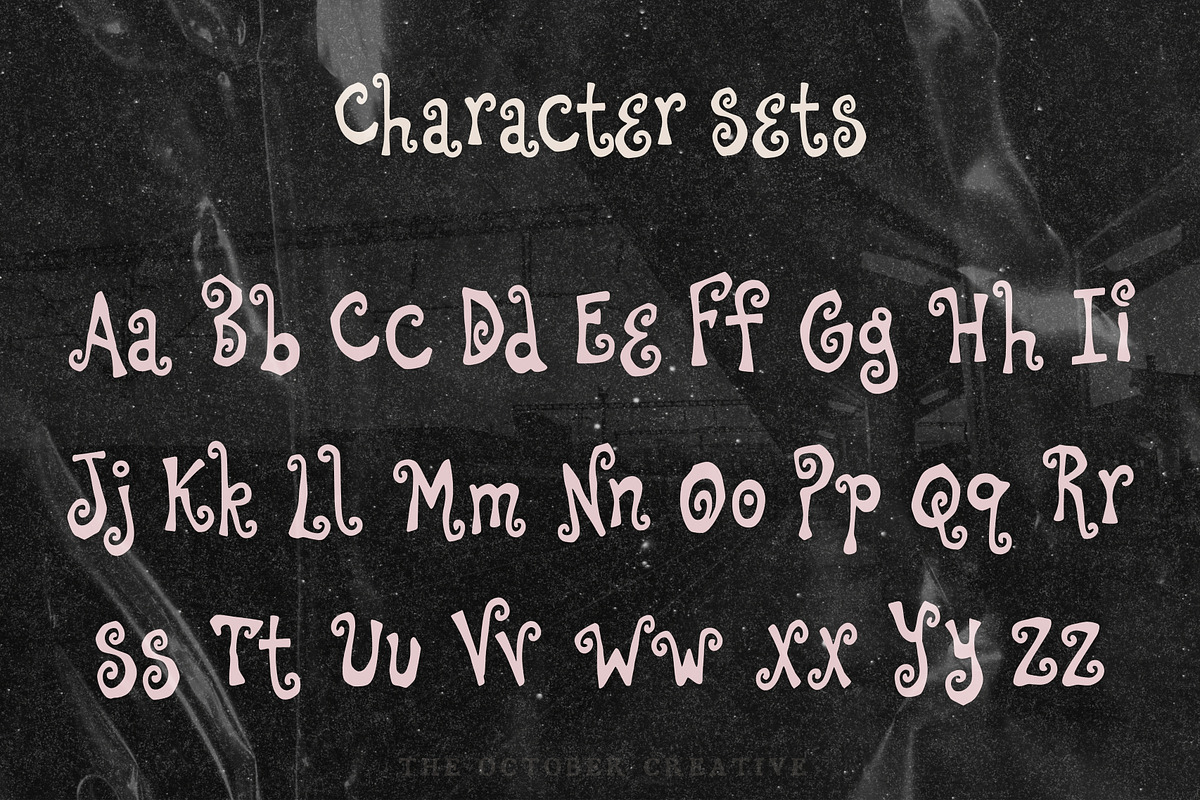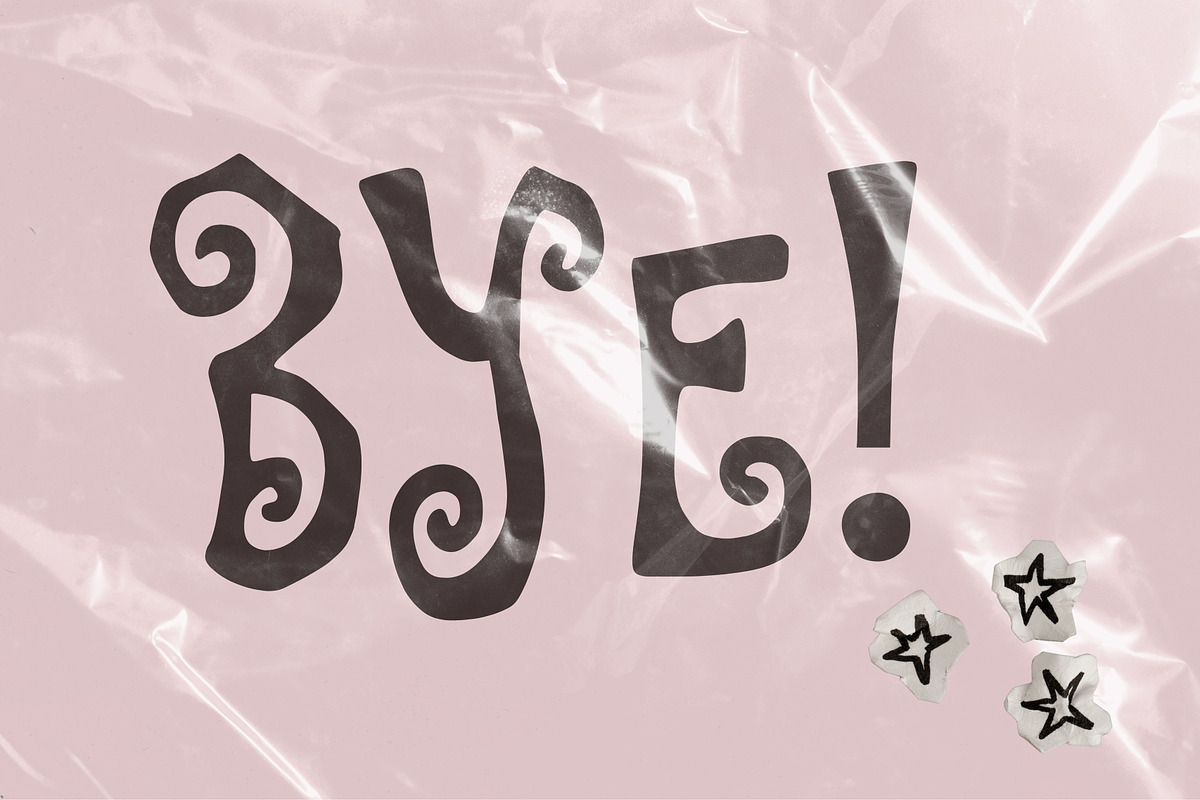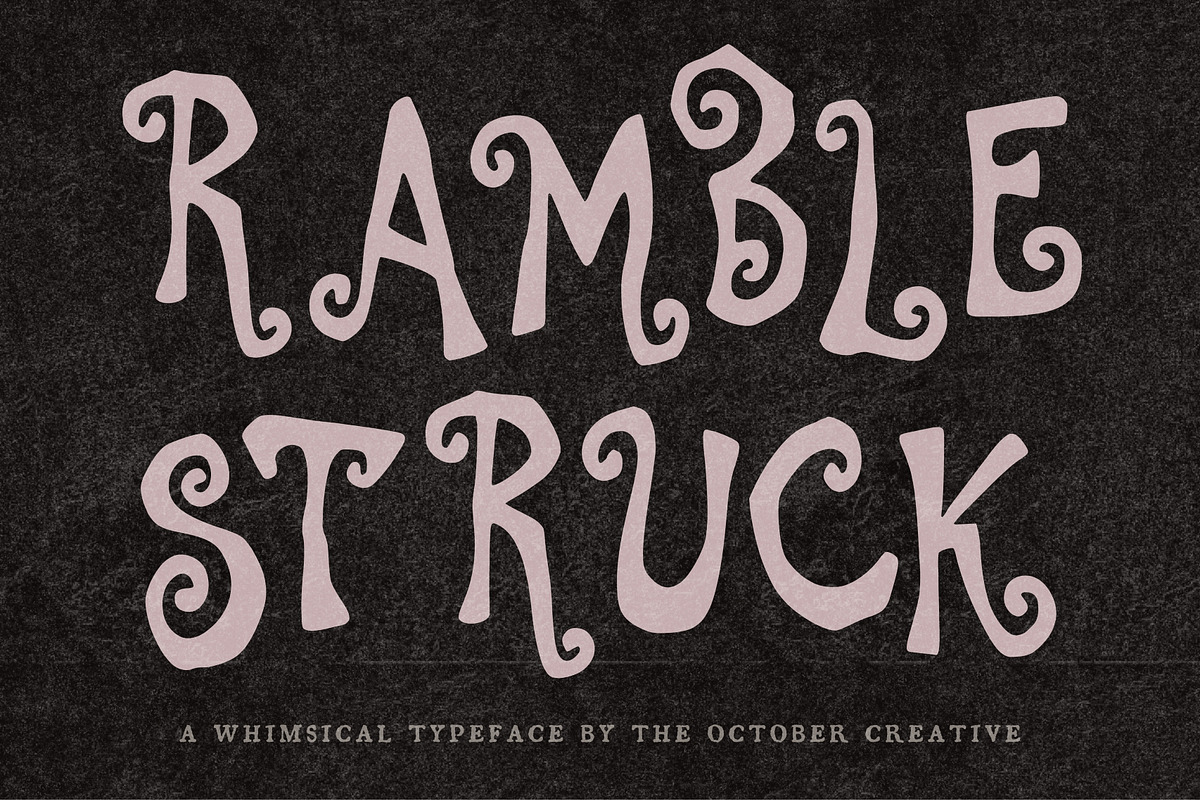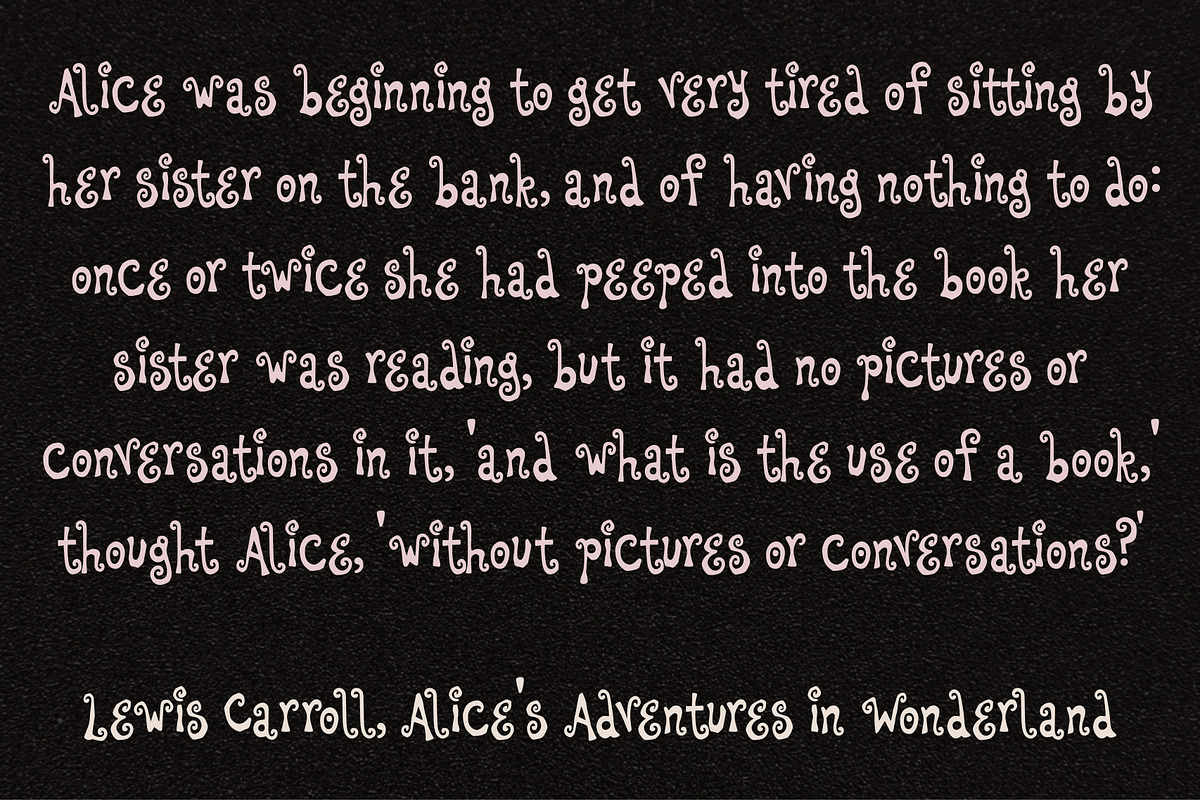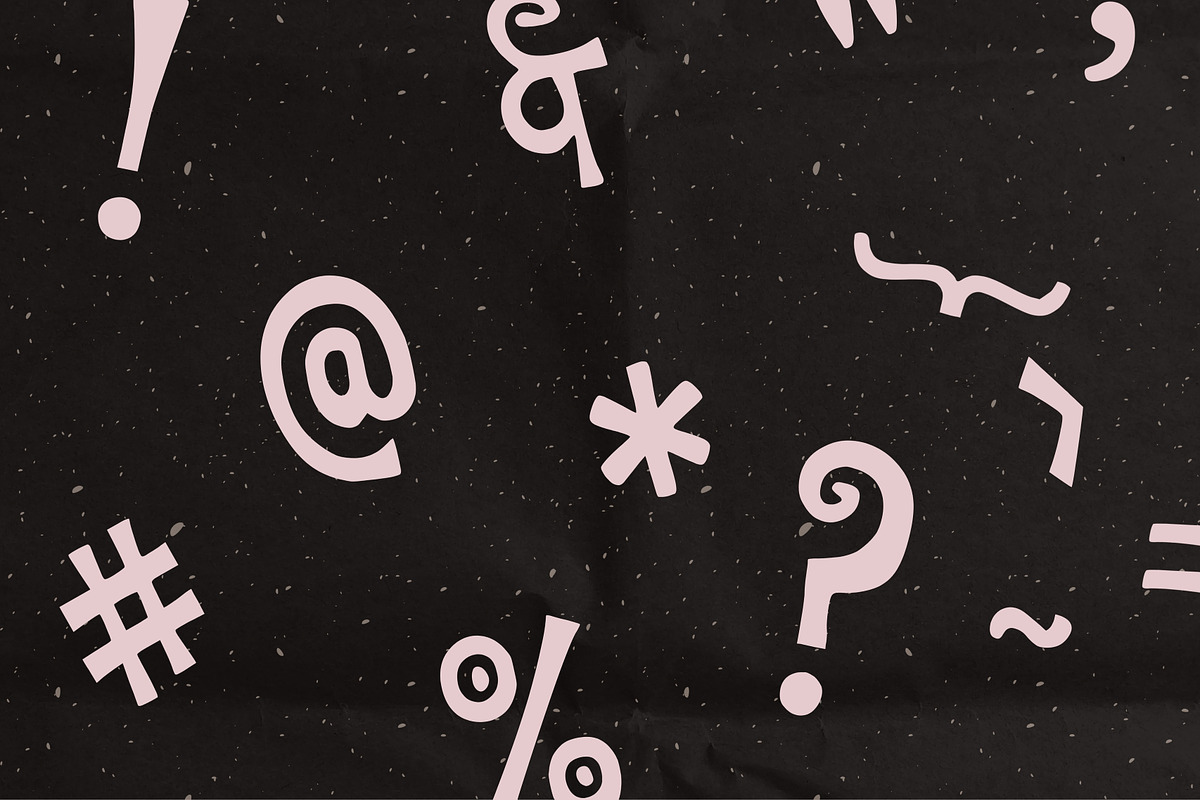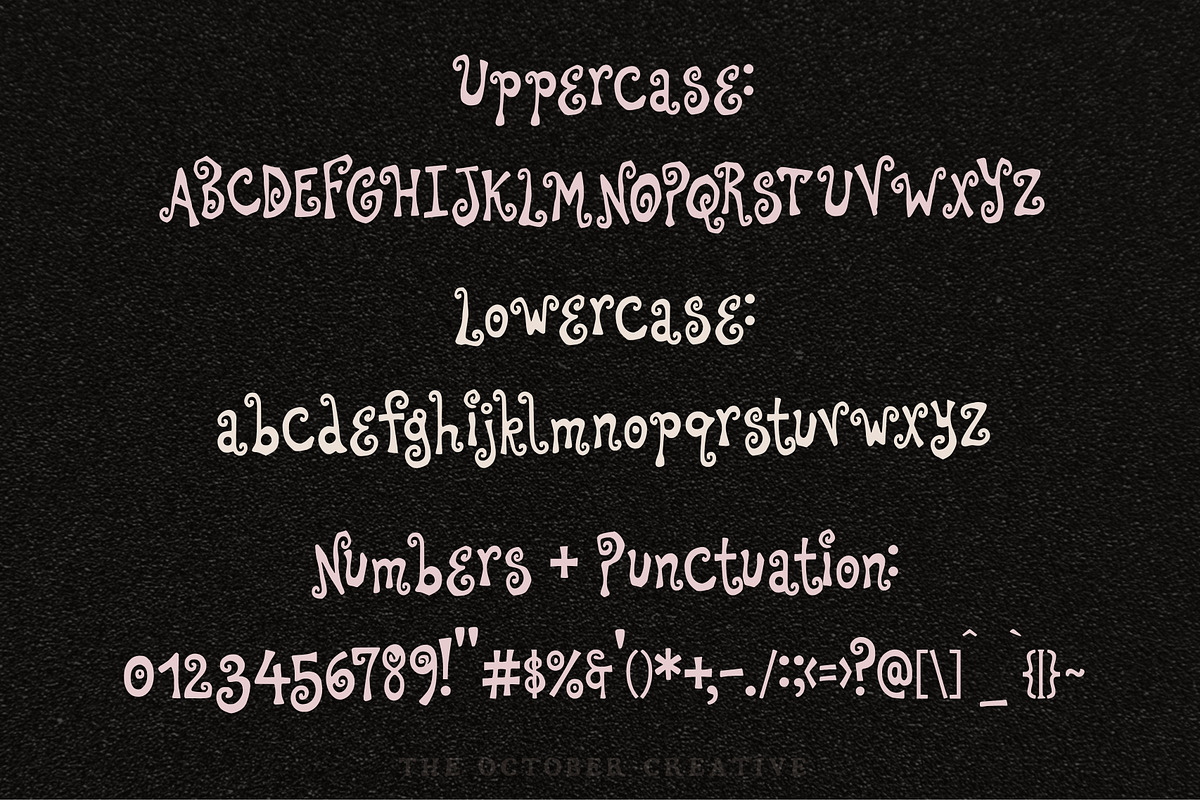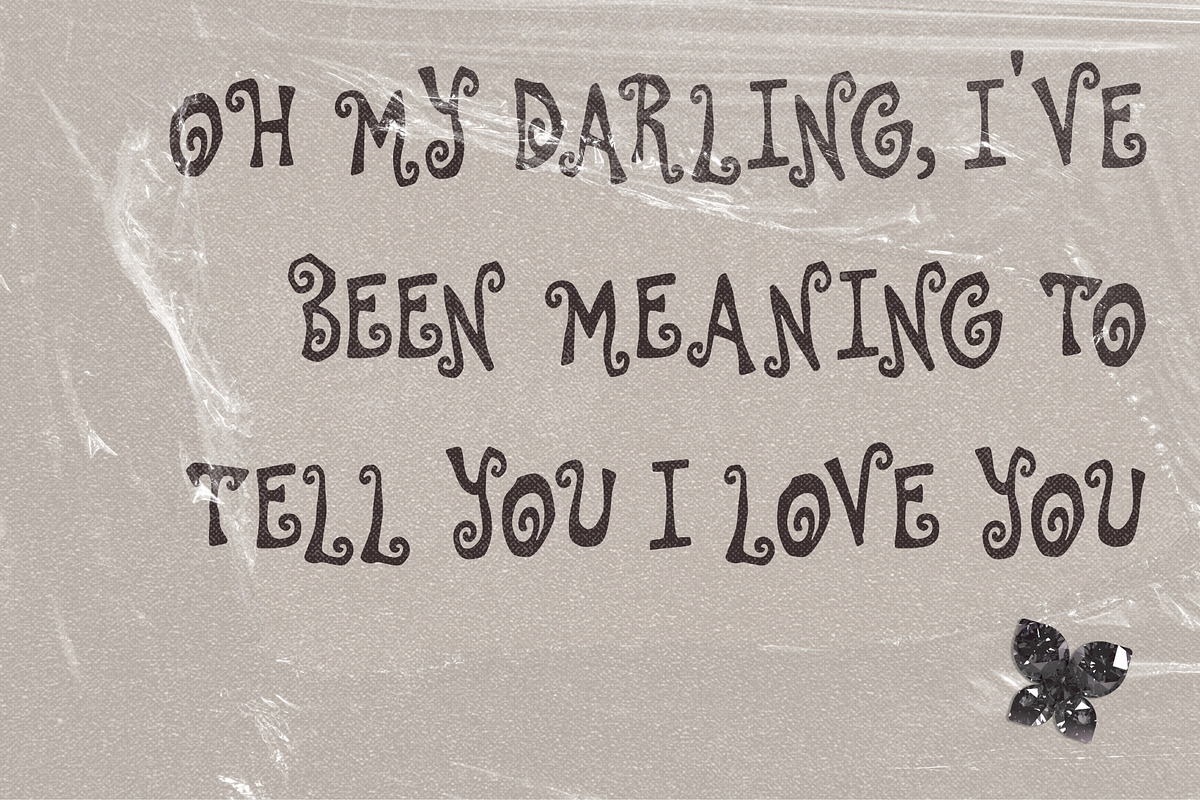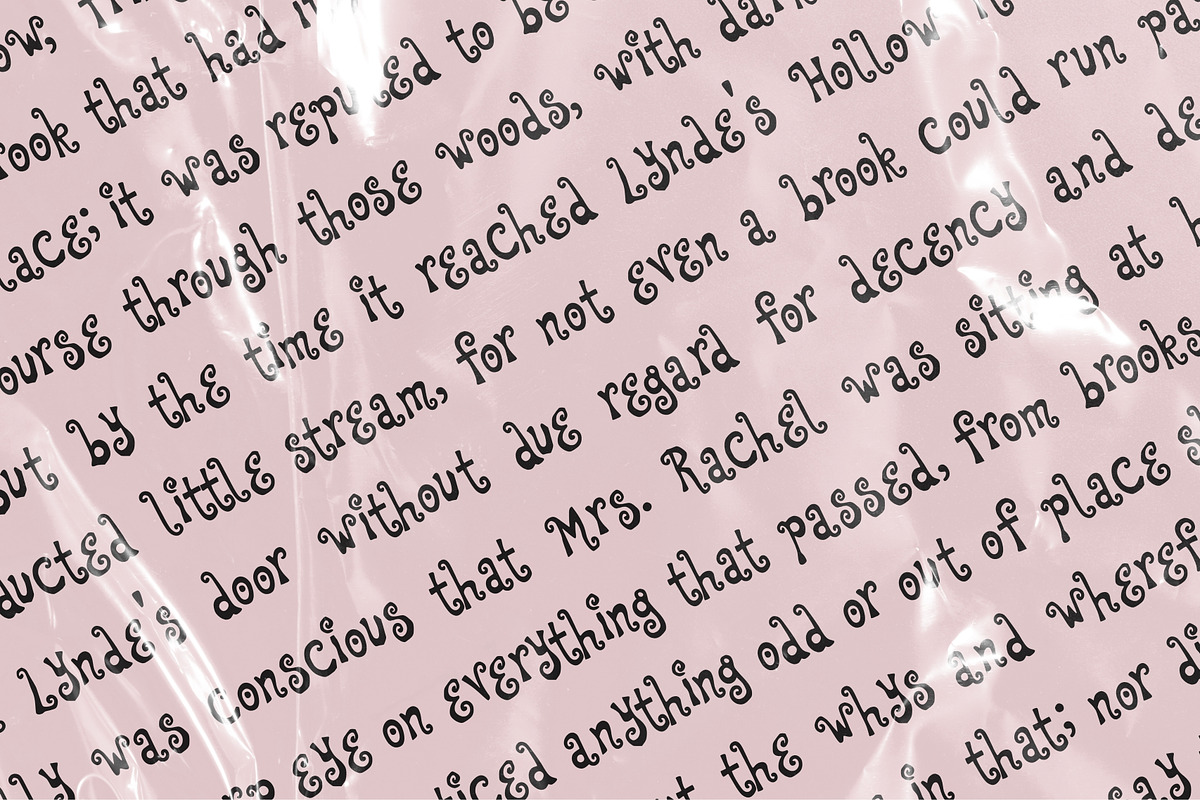
Ramblestruck Bouncy Display Font
Ramblestruck is a bouncing display font with bold rounded letters at mismatched heights and curled ends, so no two sit on the same line. It fits band posters, gig flyers, merch graphics, and zine covers.
CHARACTER SET
Uppercase A to Z, lowercase a to z, numerals 0 to 9, and every standard keyboard punctuation mark and symbol: ! " # $ % & ' ( ) * + , - . / : ; < = > ? @ [ \ ] ^ _ ` { | } \~
Curly quotes and apostrophes (‘ ’ “ ”), en and em dashes, an ellipsis, and a bullet.
Accented letters: À Á Â Ã Ä Å Ç È É Ê Ë Ì Í Î Ï Ñ Ò Ó Ô Õ Ö Ù Ú Û Ü and their lowercase forms.
LANGUAGES SUPPORTED
English, plus the accented vowels, Ñ, and Ç used in names and everyday words in Spanish, French, Italian, Portuguese, German, and Dutch. Not included: ß, Æ, Ø, Œ, and the upside-down ¿ and ¡.
SPECIAL CHARACTERS